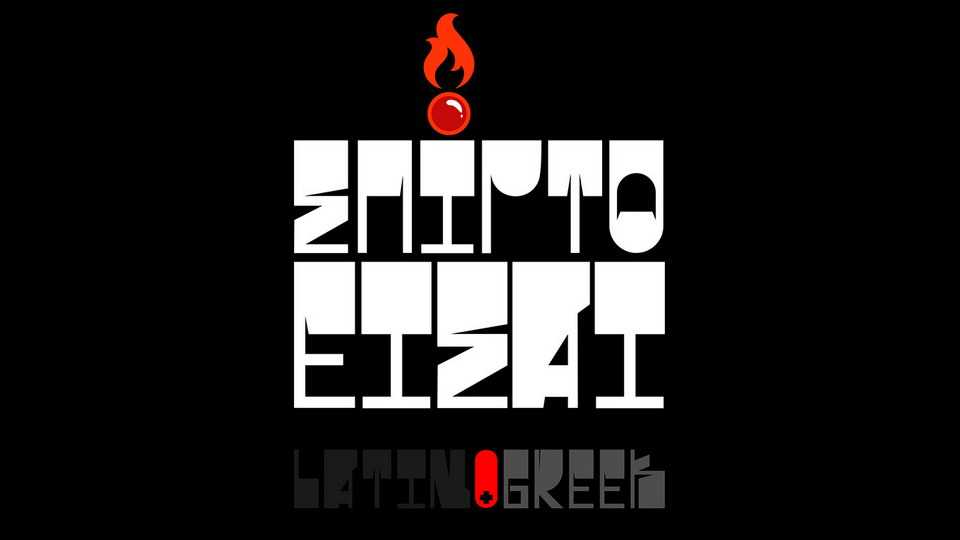
Download Spirt-O font, a fat geometric typeface designed for headlines. Spirt-O is the ideal font for creating fat – bold style lettering posters but can’t be used if u don’t know how to make fun with it.
Designer: George Katsigiannis